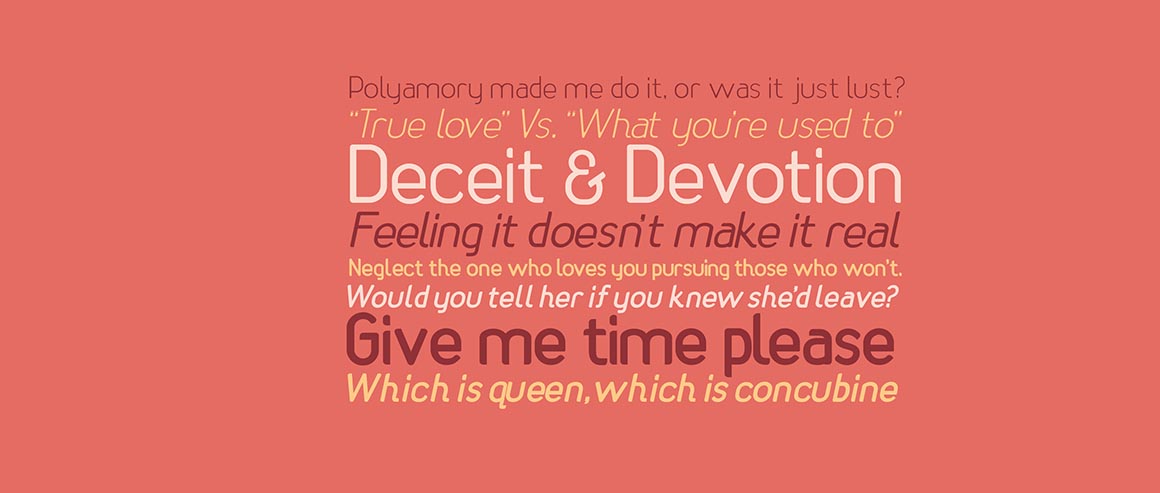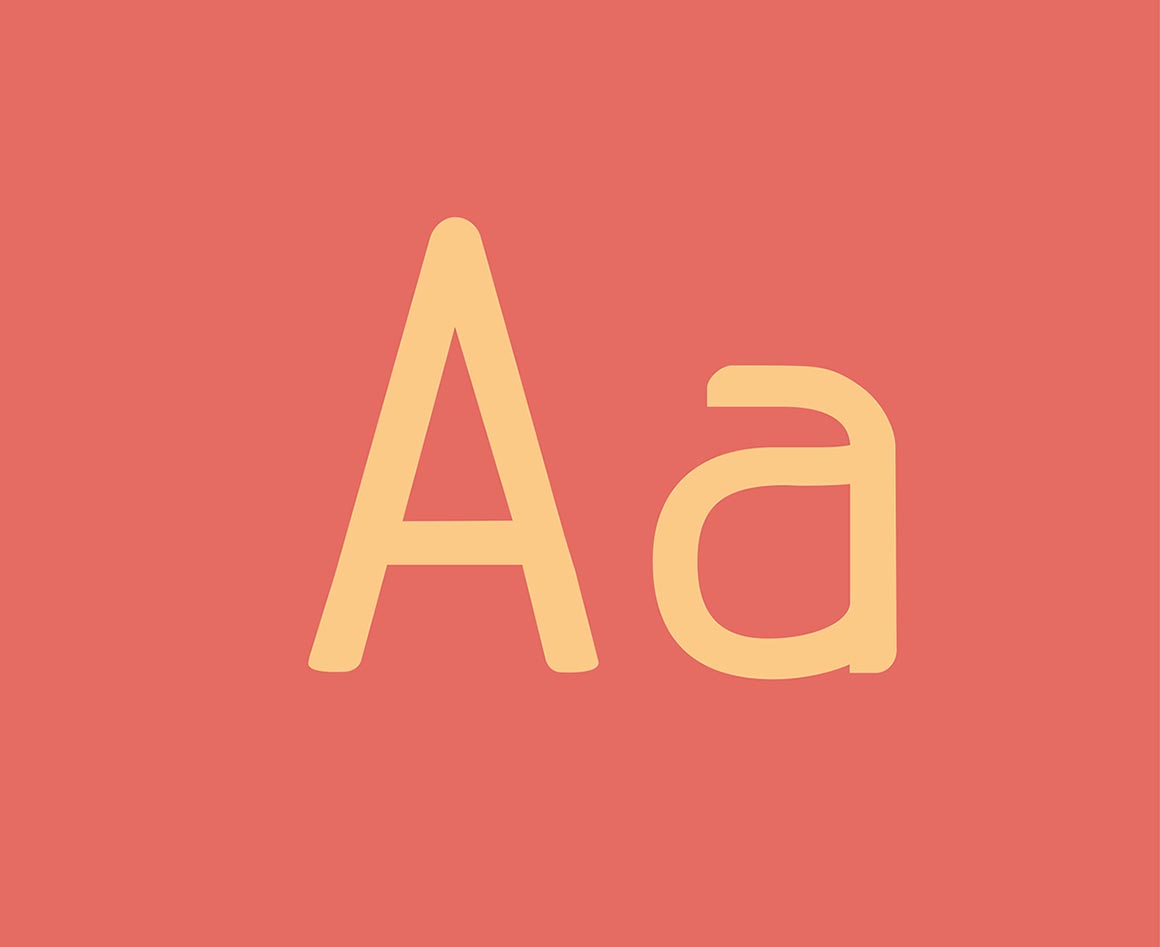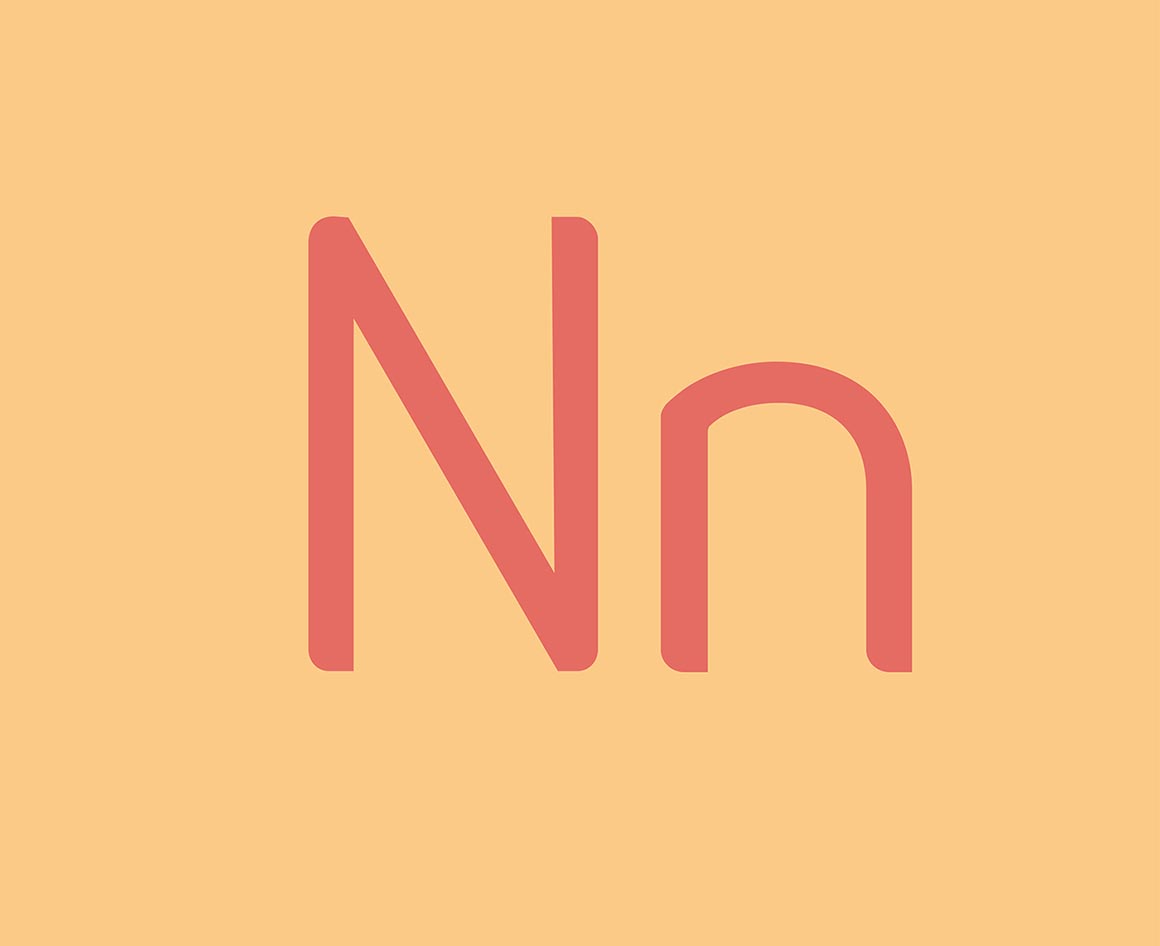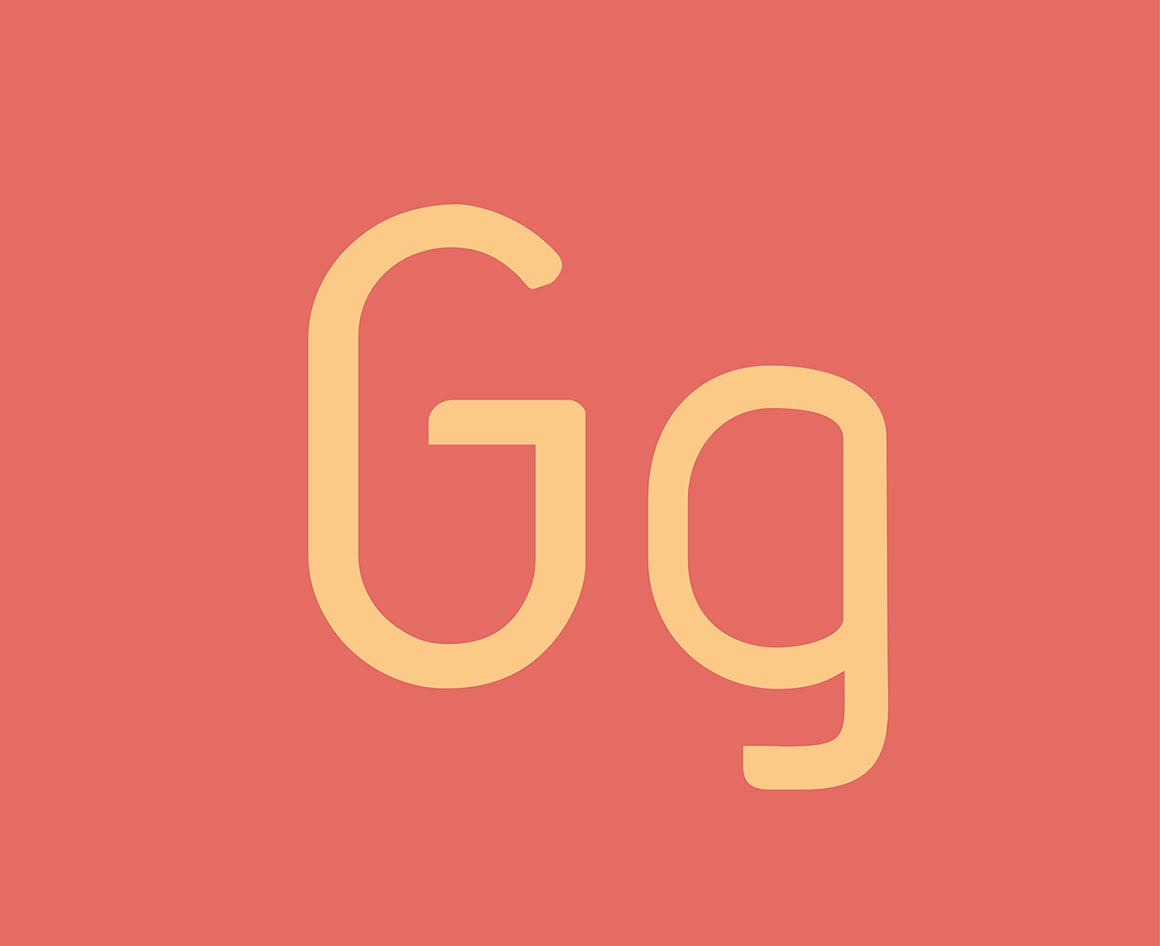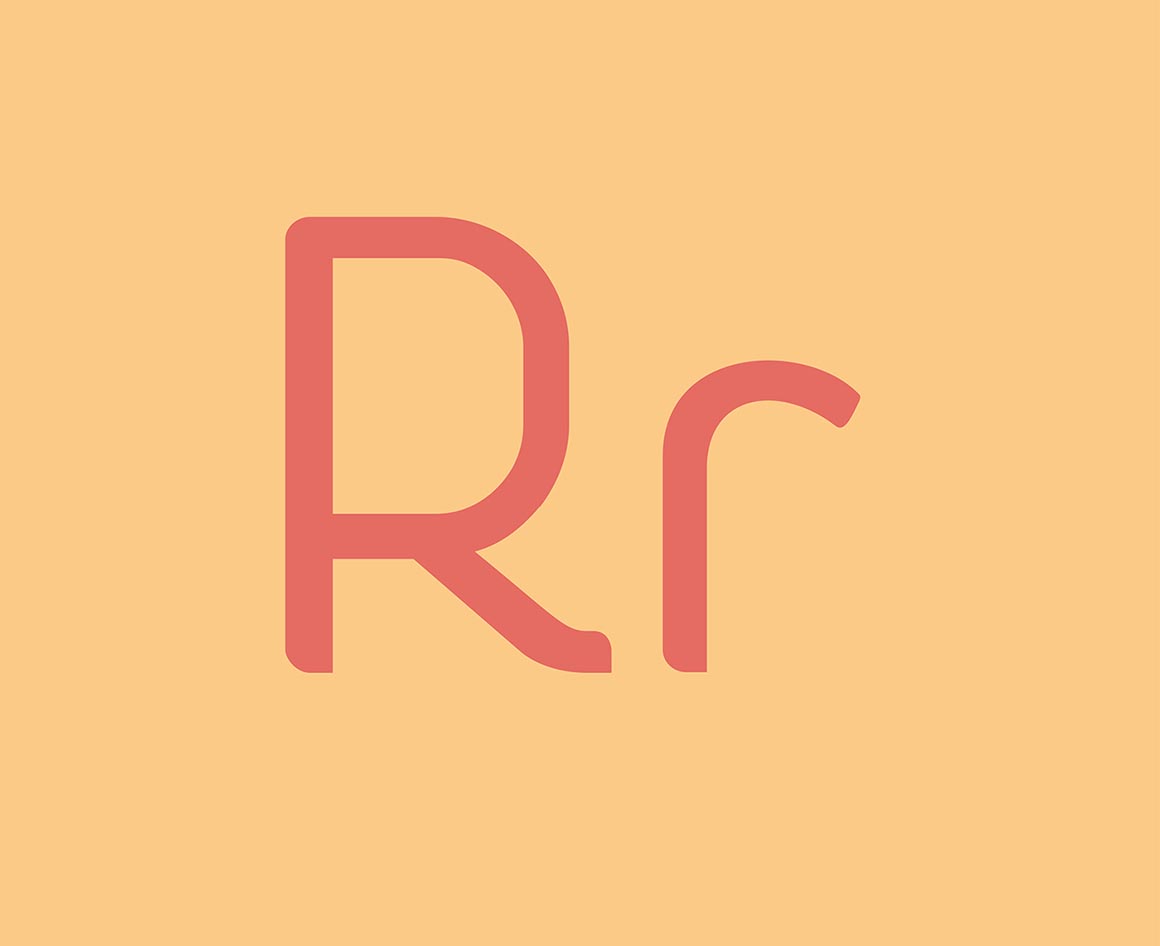
Rhetoric – Free Font Family
This free modern sans serif custom font is from Tshepo Mosoeu. Great for your new modern or creative style artworks. Download & enjoy 😉